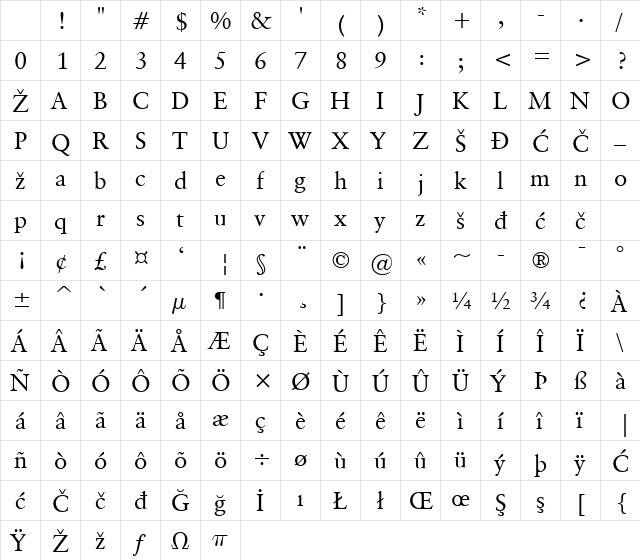
Complete GaramondClassic Regular glyph index. Displaying only characters natively supported by GaramondClassic Regular font.
GaramondClassic wears its vintage influences proudly, with letterforms that recall mid-century signage, classic packaging, and nostalgia-driven design.
Font Pairing: Combine GaramondClassic with a simple slab or neutral sans - period-accurate companions reinforce the vintage feel without competing for attention.
Pro Tip: Lean into GaramondClassic's period character by pairing it with aged paper textures, muted colour palettes, and vintage illustration styles.